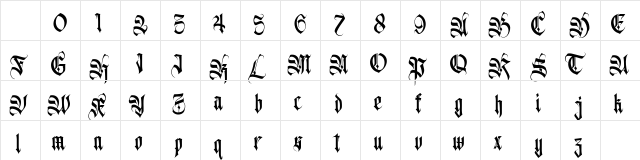
Complete Avertequestra PERSONAL USE ONLY Regular glyph index. Displaying only characters natively supported by Avertequestra PERSONAL USE ONLY Regular font.
Avertequestra PERSONAL USE ONLY is a composed and adaptable typeface that performs quietly and consistently across a wide range of design contexts.